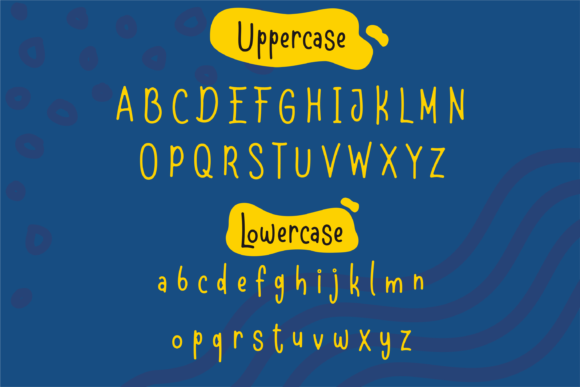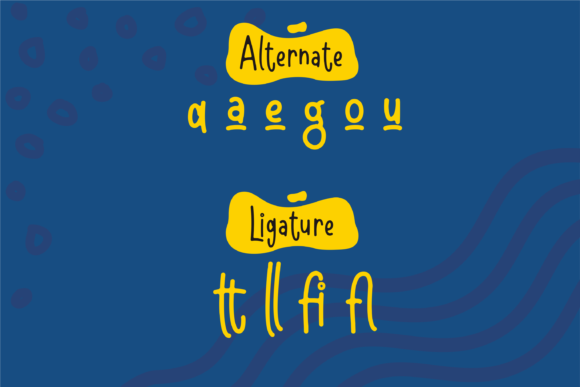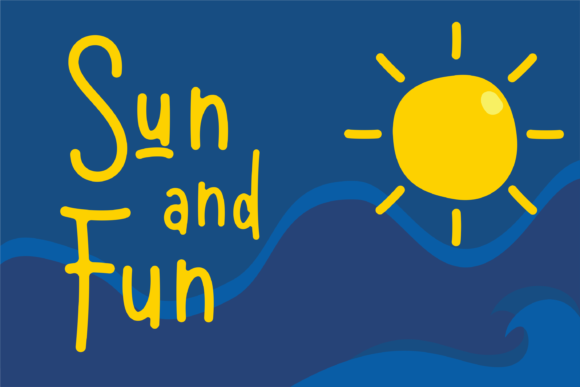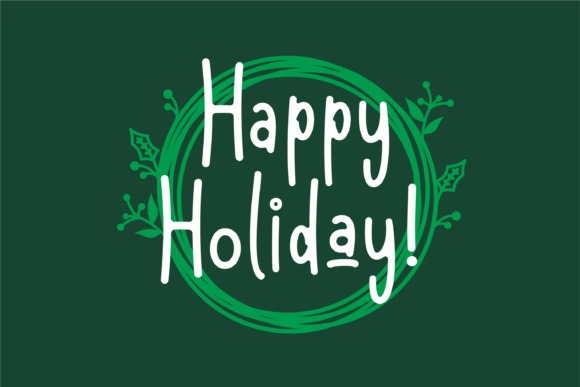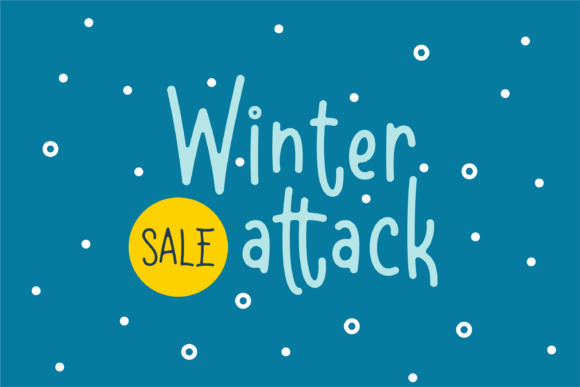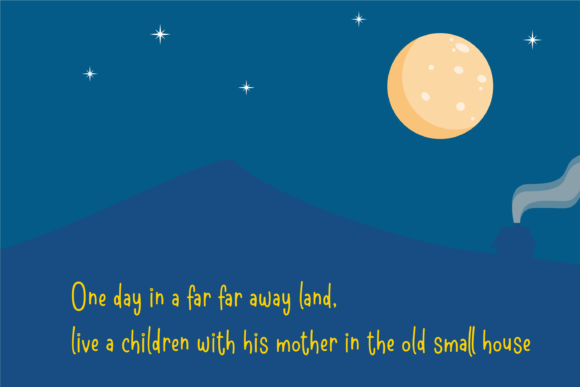
Introduction to Shell & Fish Font
Shell & Fish is a simple and natural handwritten font.
This font is perfect for many kind of projects, quotes, greeting cards, invitation card, children book, and your craft project .
Key Features of Shell & Fish Font